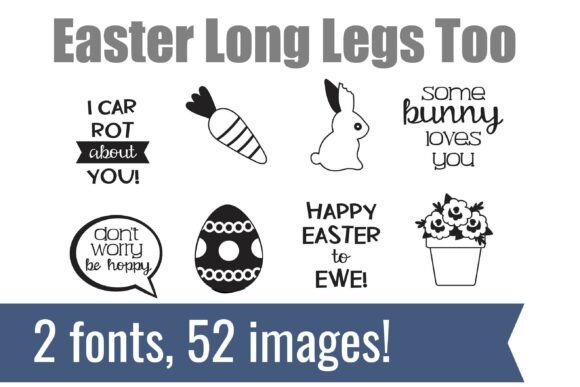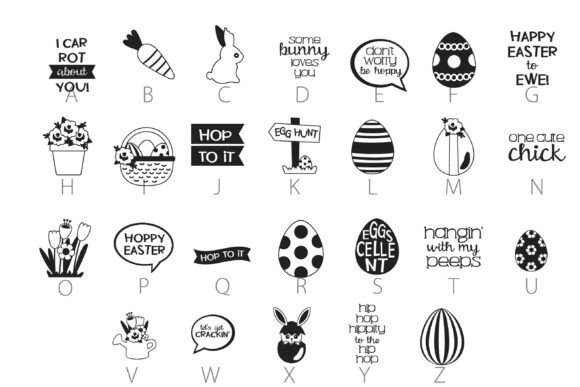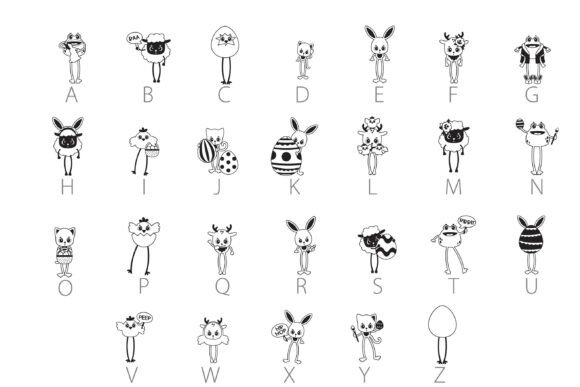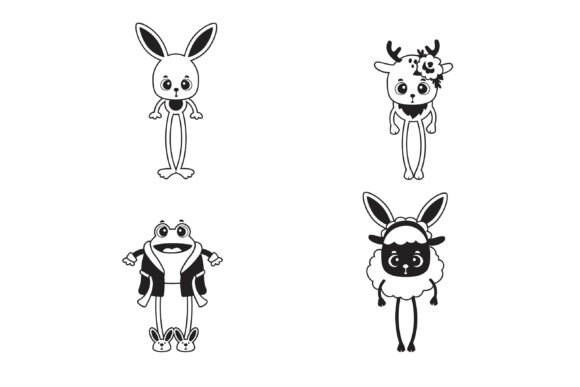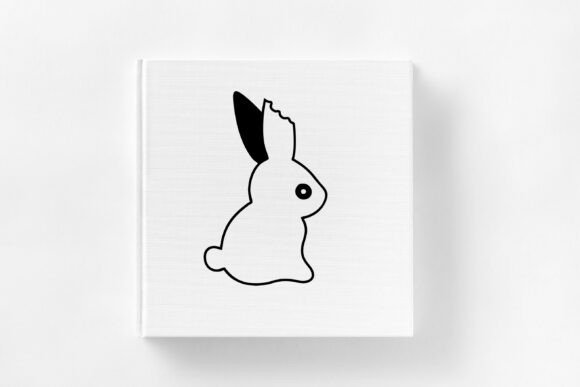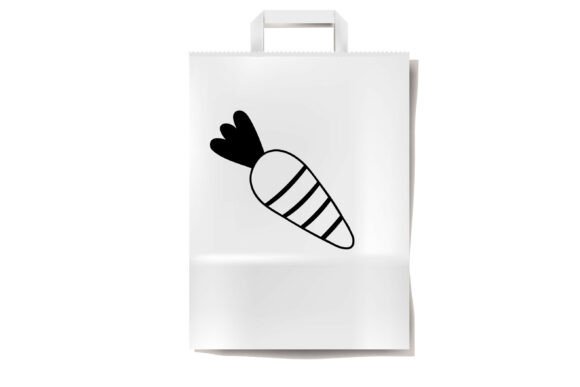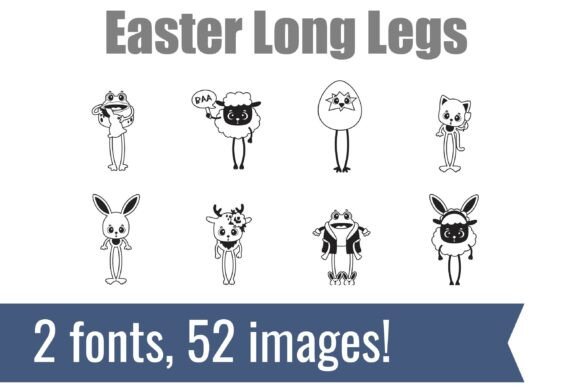
Easter Long Legs Dingbats Font: Unlock Endless Creativity for Designers and Crafters
Are you tired of spending hours searching for the perfect icons and graphics for your designs? Look no further! The Easter Long Legs Dingbats Font bundle is here to revolutionize your creative process. This bundle includes two perfectly coordinated dingbat fonts, featuring adorable long-legged Easter characters that will add a touch of charm to your designs.
Dingbat fonts are a type of font that features graphical symbols, icons, and shapes instead of traditional letters. They are perfect for designers and crafters who want to add a personal touch to their work without having to spend hours searching for individual graphics. With dingbat fonts, you can create stunning designs with just a few clicks.
The Easter Long Legs Dingbats Font bundle includes two dingbat fonts that are perfectly coordinated to ensure a cohesive look in your designs. Each font features dozens of adorable long-legged Easter characters, including bunnies, eggs, and other seasonal icons. These fonts are designed to be versatile and can be used for a variety of projects, such as:
- Vinyl cutting and paper crafts
- Planners and journals
- Enhance creativity: The Easter Long Legs Dingbats Font bundle offers a wide range of designs to inspire your creativity and help you stay on-trend.
- Improve consistency: The two fonts in this bundle are perfectly coordinated, ensuring a cohesive look in all your designs.
- Experiment with different colors and textures: Add an extra layer of depth and interest to your designs by experimenting with different colors and textures.
- Combine with other fonts: Pair the Easter Long Legs Dingbats Font with other fonts to create unique and eye-catching designs.
- Use for seasonal and holiday projects: The Easter Long Legs Dingbats Font bundle is perfect for seasonal and holiday projects, but don’t be afraid to use it for other projects too!
The Easter Long Legs Dingbats Font bundle is a must-have for designers and crafters who want to unlock endless creativity and take their designs to the next level. With two perfectly coordinated dingbat fonts featuring adorable long-legged Easter characters, this bundle offers dozens of cohesive designs at your fingertips. Say goodbye to hours of searching for individual graphics and hello to stunning designs in no time.